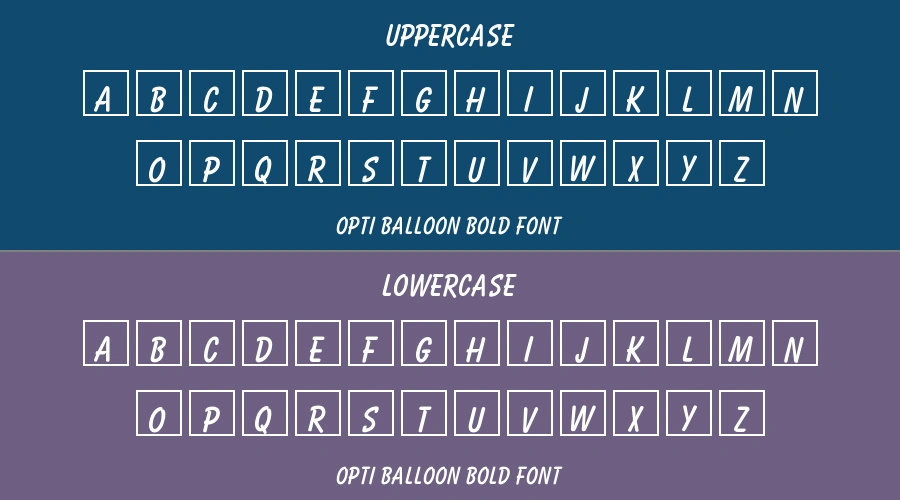
About OPTI Balloon Bold Font
OPTI Balloon Bold Font embodies typographic excellence through its masterful combination of creative flair and accuracy. Created for historical publications, this typeface delivers exceptional durability and system compatibility across all applications. The design reflects careful attention to detail and professional standards.
Advanced capabilities include distinctive calligraphic influence and versatile mid-word alternates, giving designers creative control. When used in retail environments, OPTI Balloon Bold Font exhibits remarkable table alignment. The harmonious balance between x-height and scientific authority sets this typeface apart.